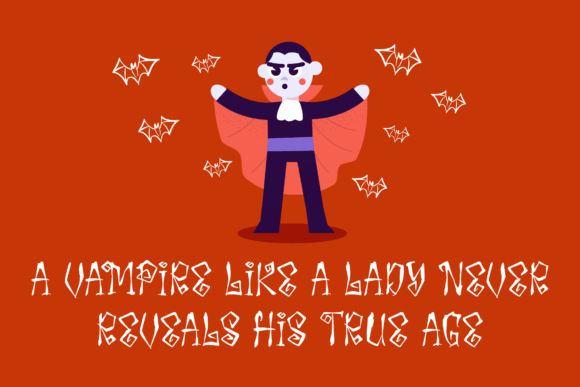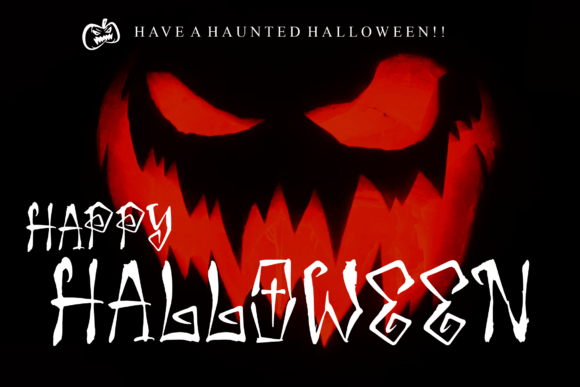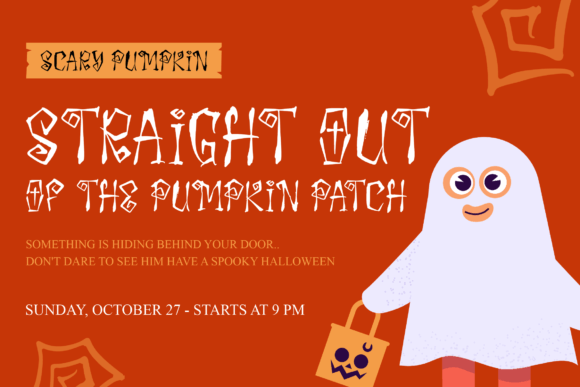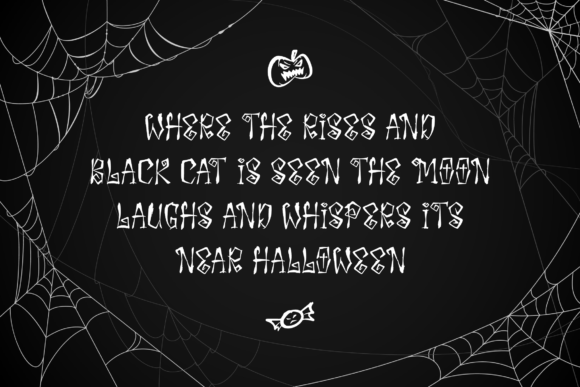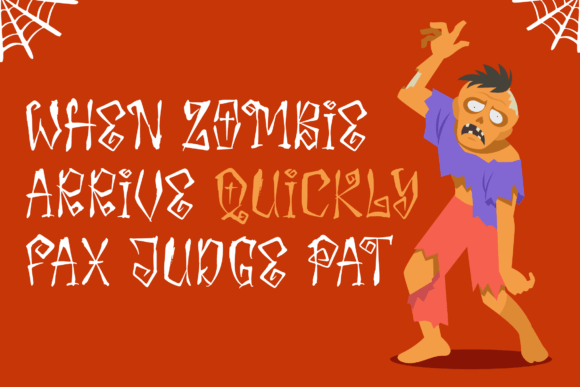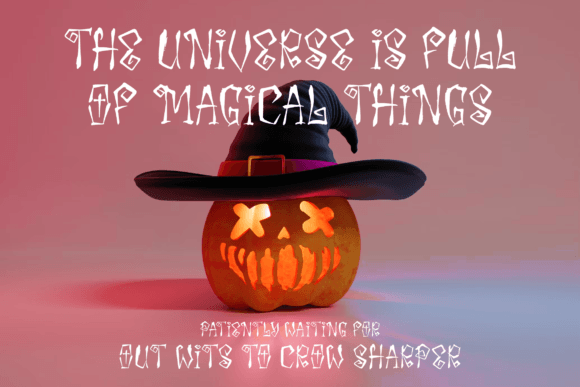
Introduction to Ghosting Vampire Font
Ghosting Vampire – Halloween Font suitable for any projects such as logos, branding projects, homeware designs, product packaging, mugs, quotes, posters, shopping bags, t-shirts, book covers, name cards, invitation cards, greeting cards, labels, photography, watermark, special events, and all your other lovely projects that need spooky typography.
Key Features of Ghosting Vampire Font
Why Choose Ghosting Vampire Font?
Ghosting Vampire Font offers exceptional quality and versatility, making it a valuable addition to your design toolkit. Whether you’re creating for personal projects or commercial use, Ghosting Vampire Font delivers professional results.